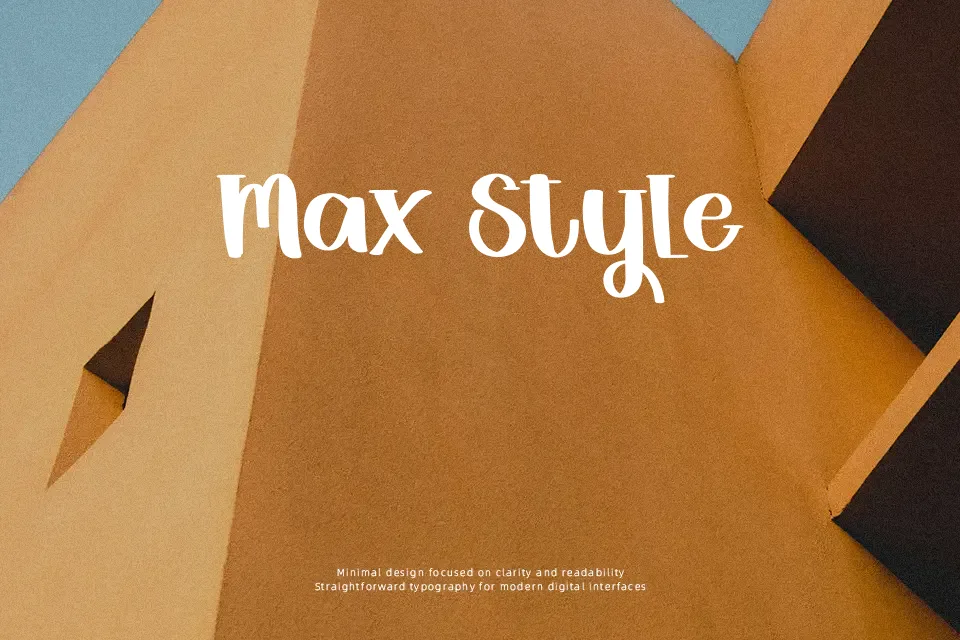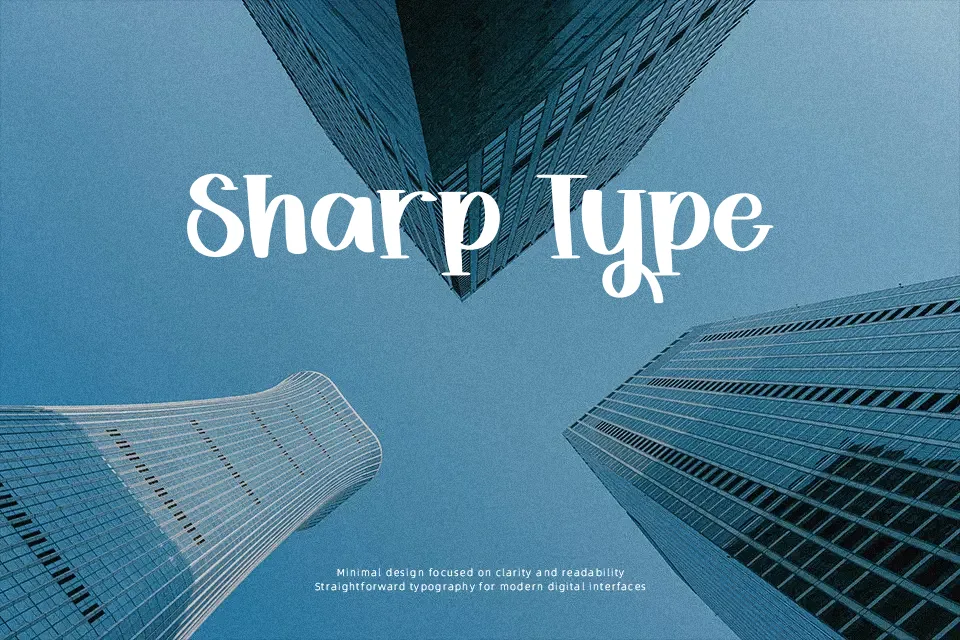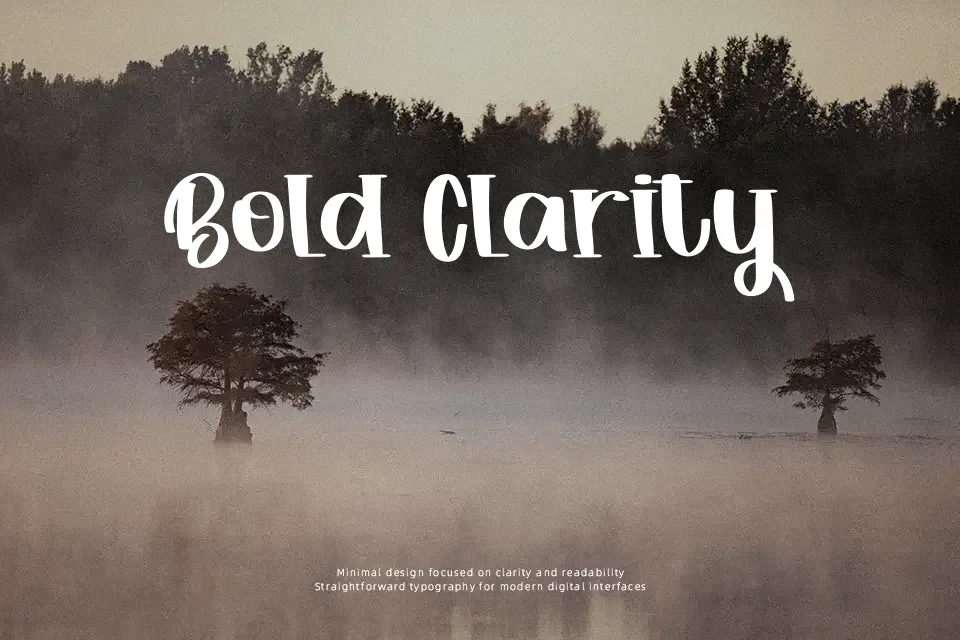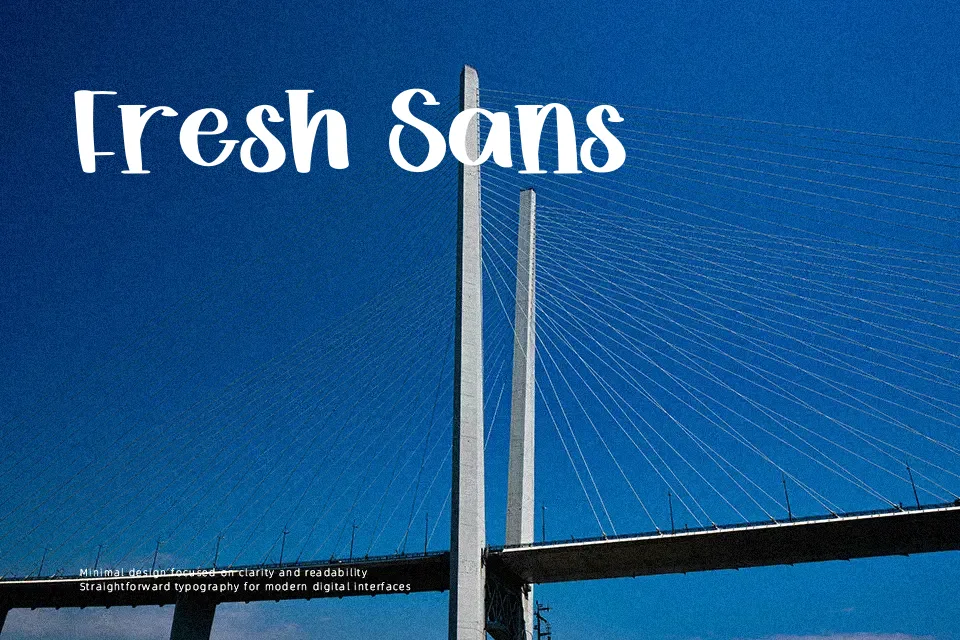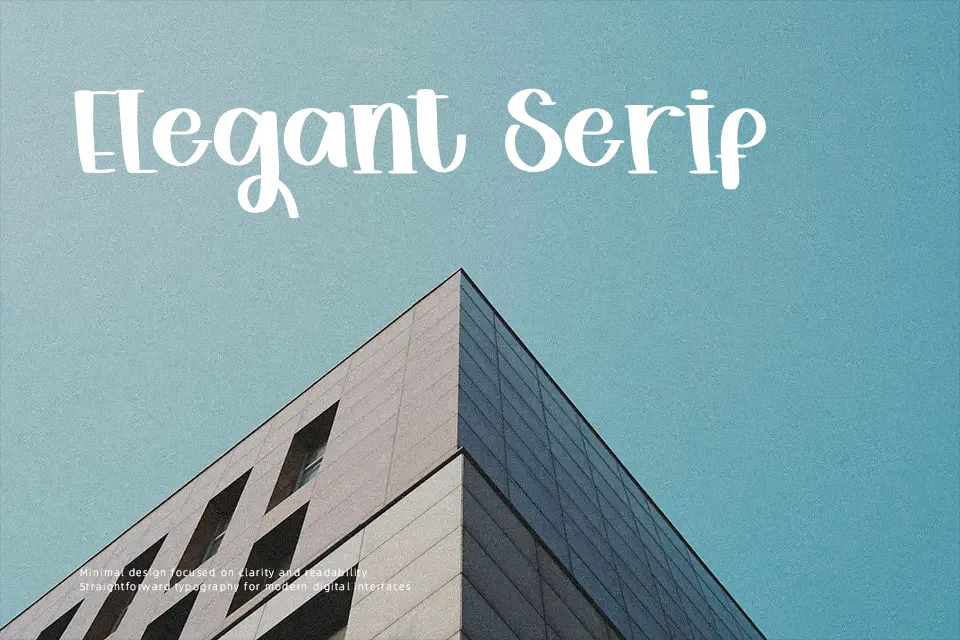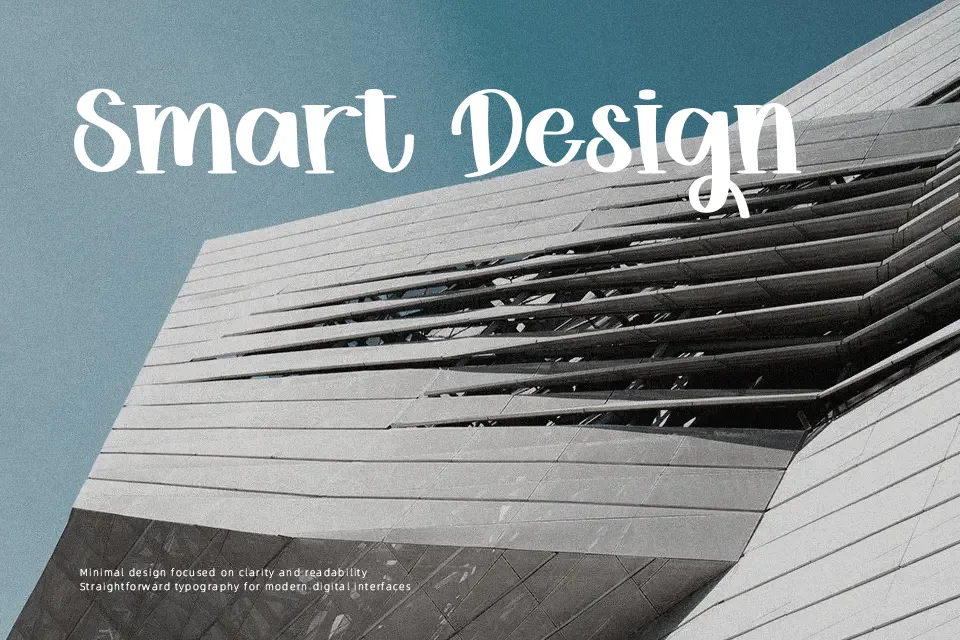
Christmas Promotion Font
Christmas Promotion Font features bold, themed display letterforms defined by decorative contours and moderate stroke contrast. The typeface exhibits generous proportions with balanced horizontal spacing, ensuring individual characters remain distinct when viewed from a distance. Uppercase structures deliver immediate visual impact, while the accompanying glyphs maintain stylistic consistency across varied headline arrangements. In practice, the letterforms perform reliably in poster designs, holiday greeting cards, and retail display headers where artistic character is prioritized. However, the ornate contours reduce reading comfort across extended text blocks, making the design less suitable for continuous paragraphs or compact digital interface captions.
Best For: holiday greeting cards, seasonal promotional banners, festive gift packaging, event posters
Not Ideal For: long paragraph text, mobile user interfaces, legal contracts, dense editorial layouts
Perfect for christmas, headline, and holiday, with a creative and decorative style.